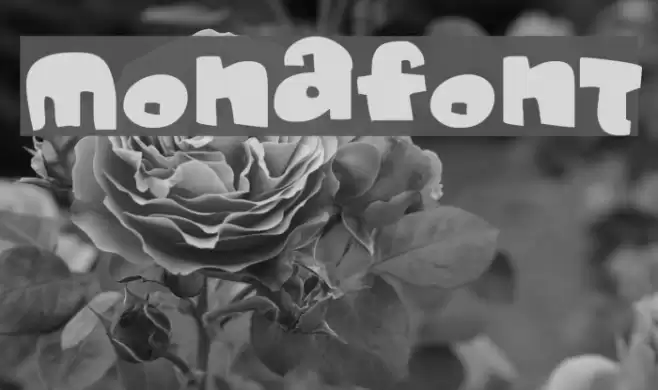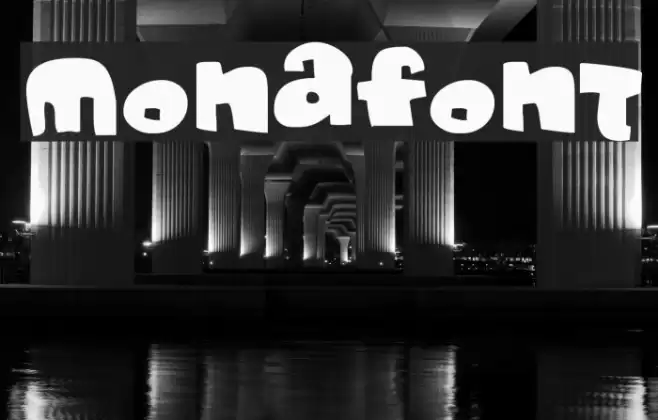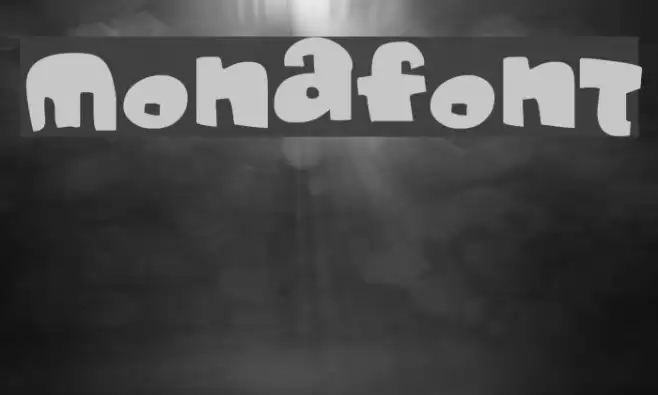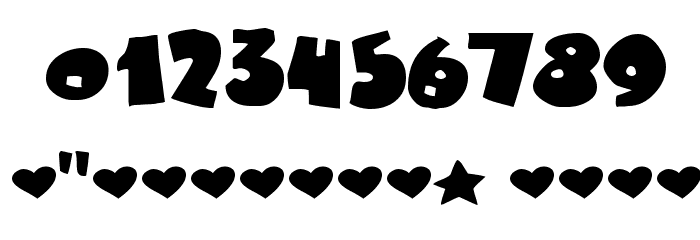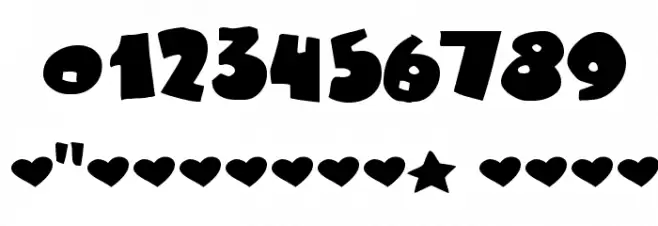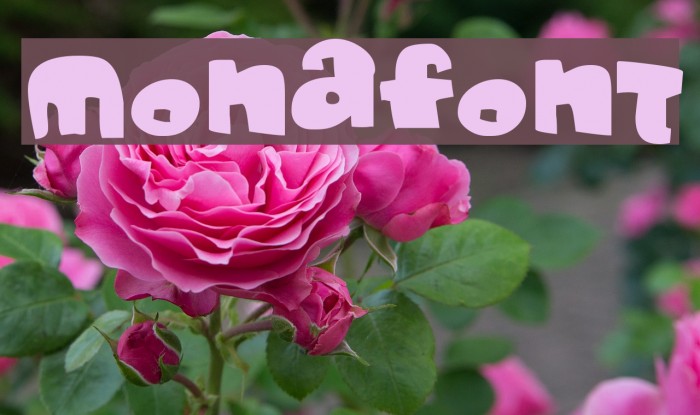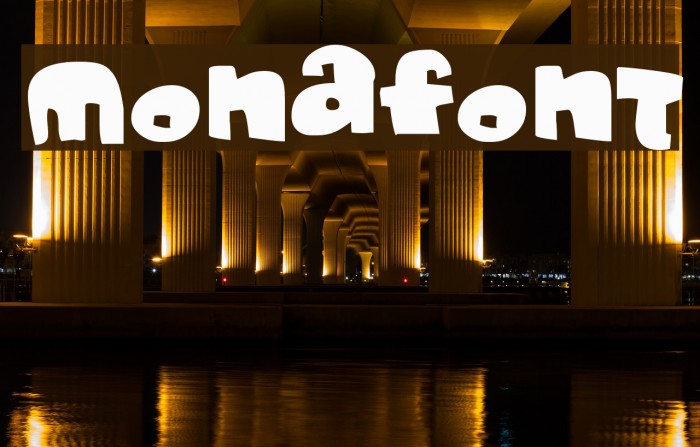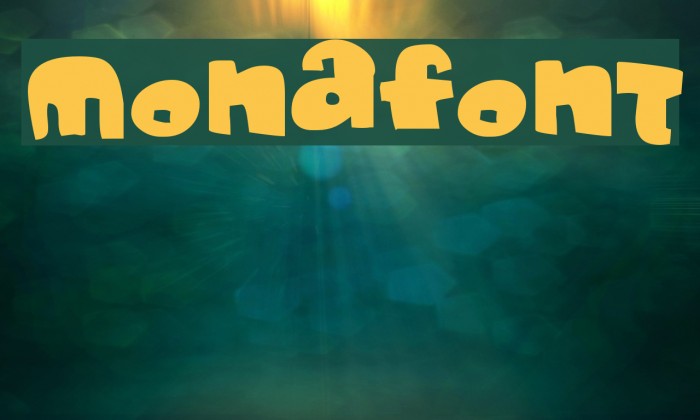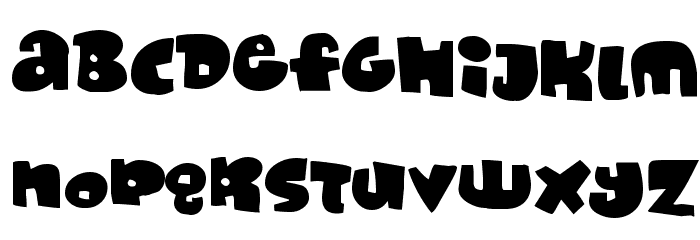
Monafont Font
Monafont Description
This playful and bold font features a unique, chunky style with exaggerated curves and rounded edges. The letters are designed with a whimsical touch, making them appear almost cartoonish. The characters are uniformly bold, with a consistent thickness throughout, giving the font a strong presence. The spacing between characters is tight, enhancing its compact and cohesive look. This font is ideal for projects that require a fun and lively aesthetic, such as children's books, playful branding, or eye-catching posters. Its decorative nature makes it stand out, while the consistent weight and width ensure readability.
A playful, bold font with chunky, rounded characters and tight spacing from Comic fonts.
- Proposed Projects: Children's books, playful branding, eye-catching posters, party invitations.
- Character Spacing: Tight
- Overall Style: Playful, Whimsical